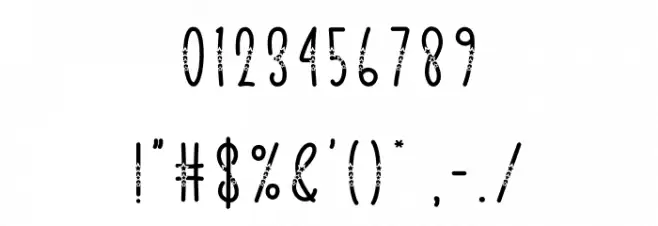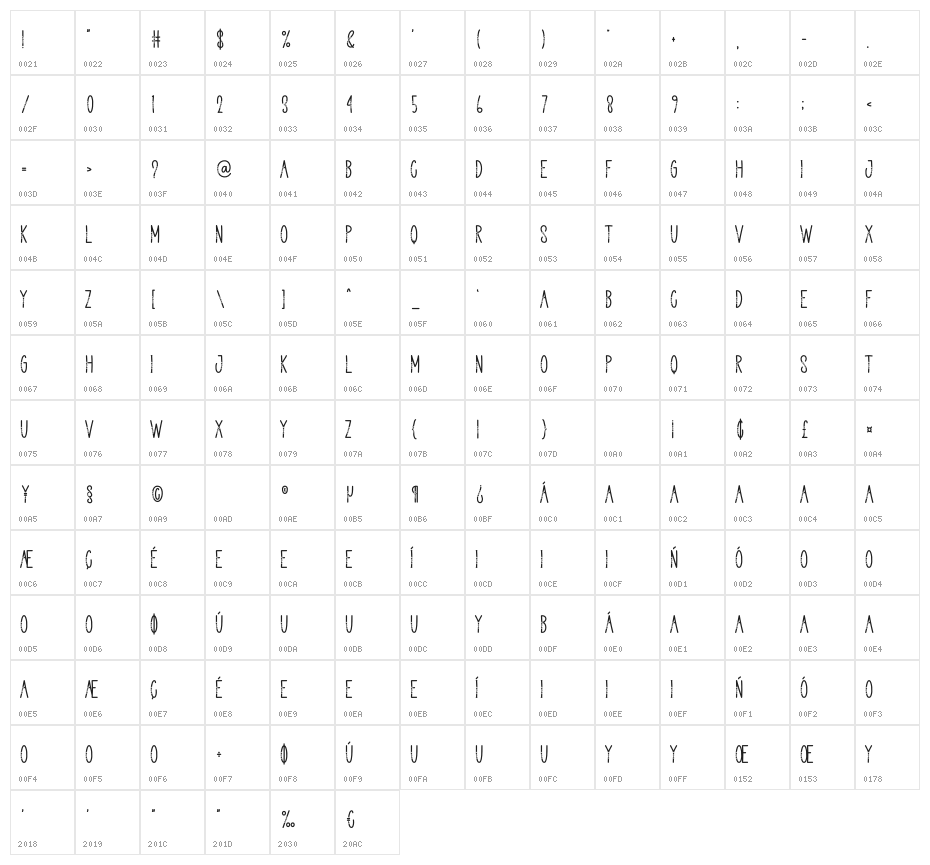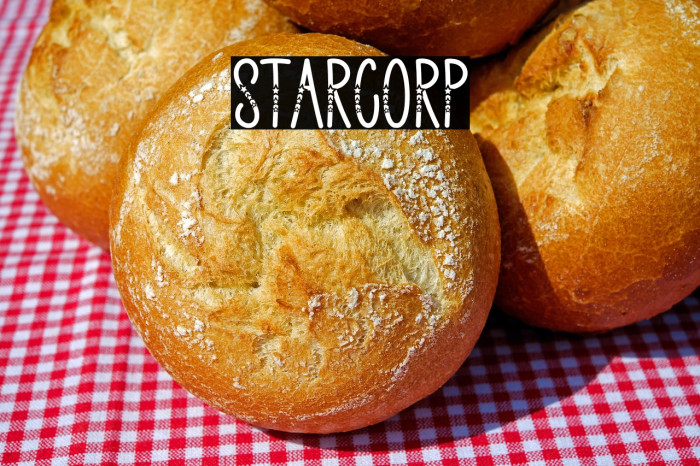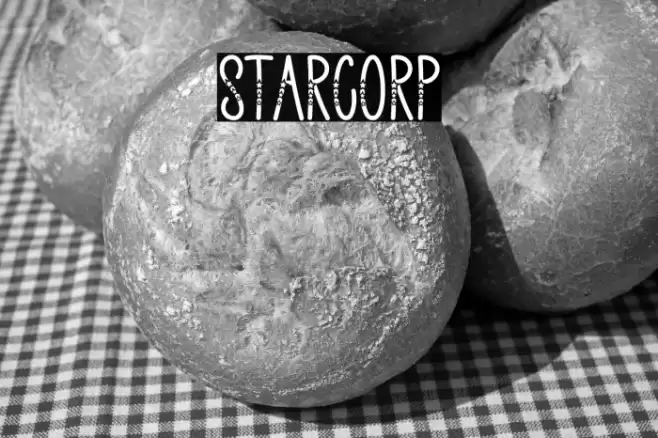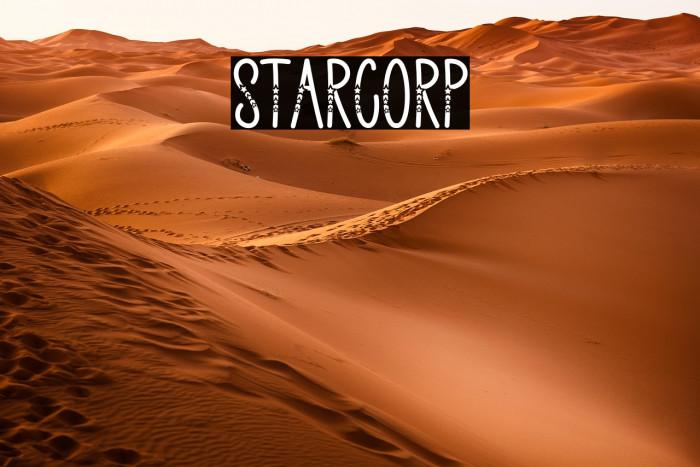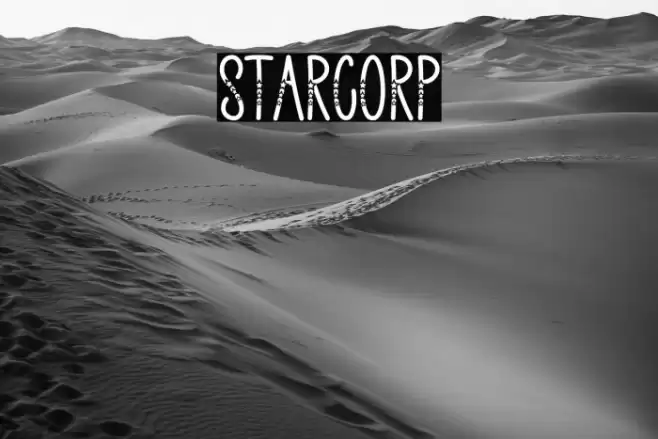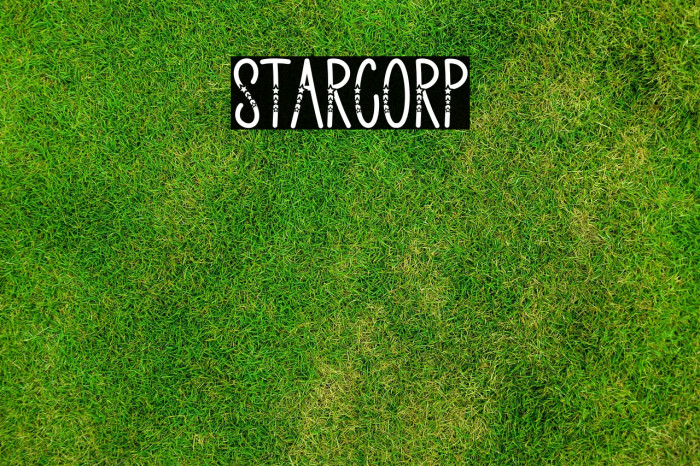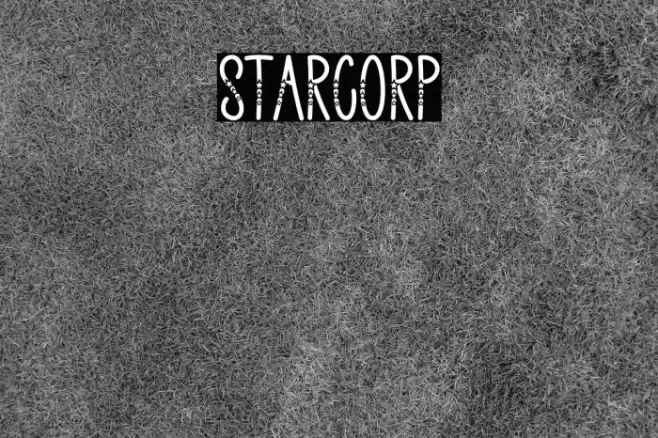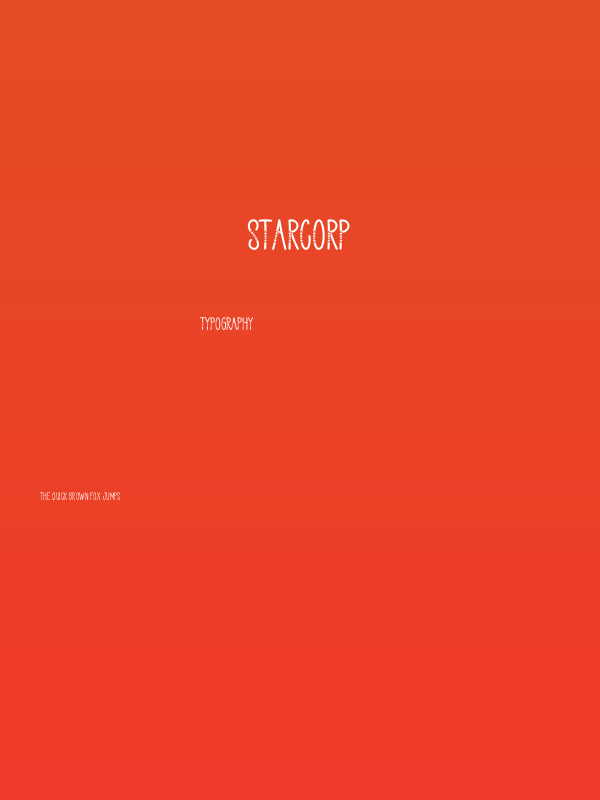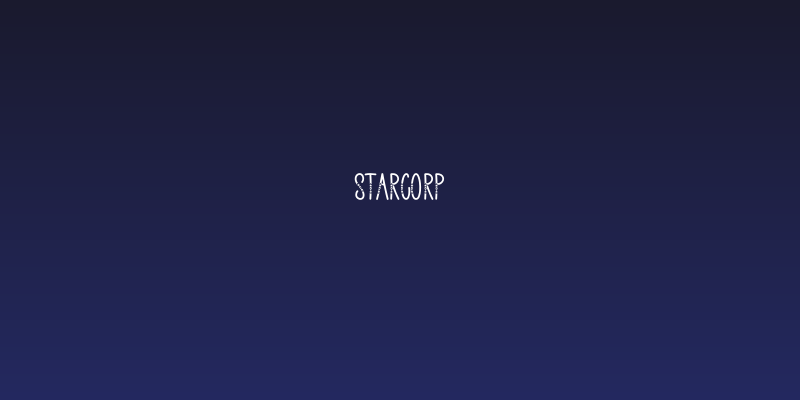
Starcorp Font
Starcorp Description
This font features a unique decorative style with a playful and whimsical appearance. Each character is adorned with small star-like embellishments, giving it a celestial and festive feel. The uppercase and lowercase letters maintain a consistent height, while the numbers and special characters follow the same decorative theme. The overall design is eye-catching and suitable for creative projects that require a touch of fun and imagination.